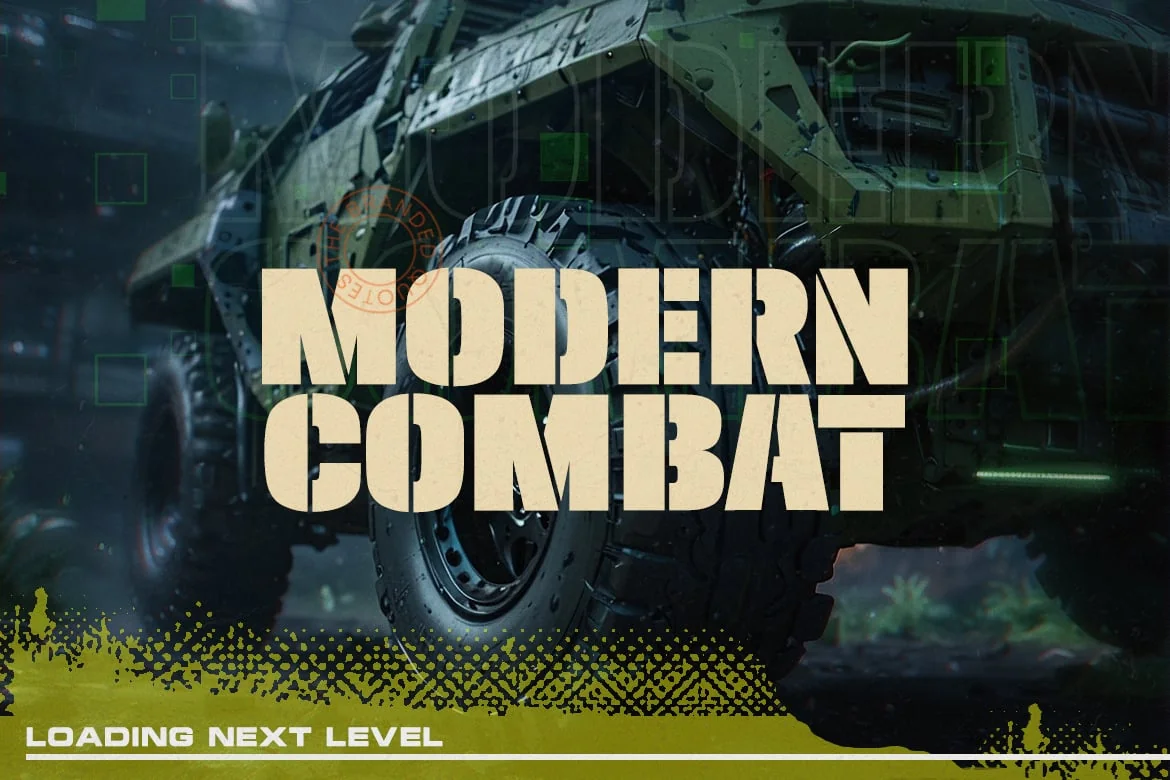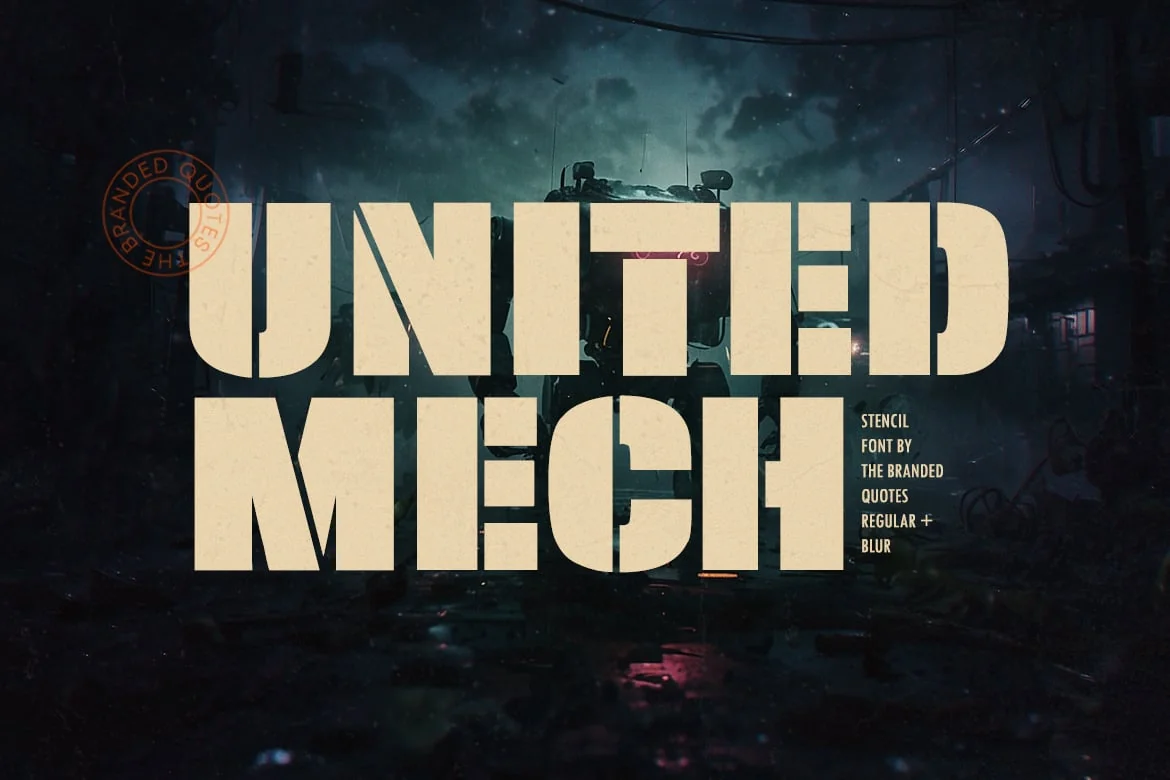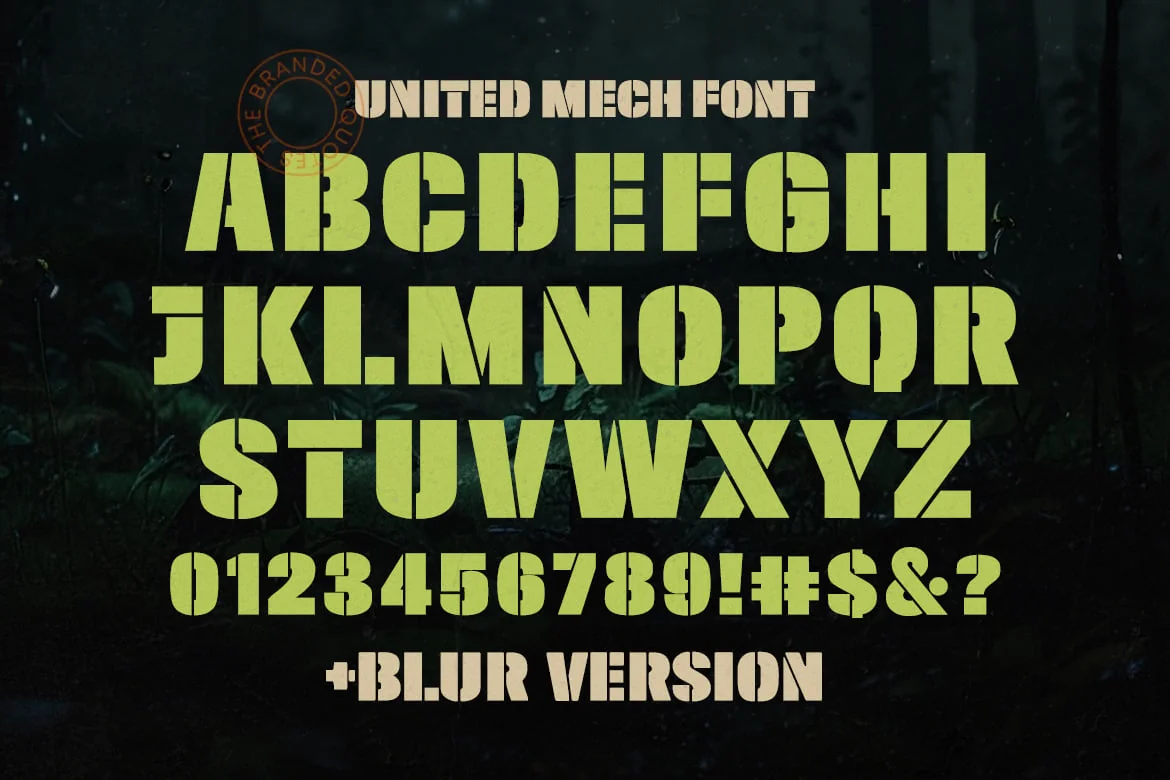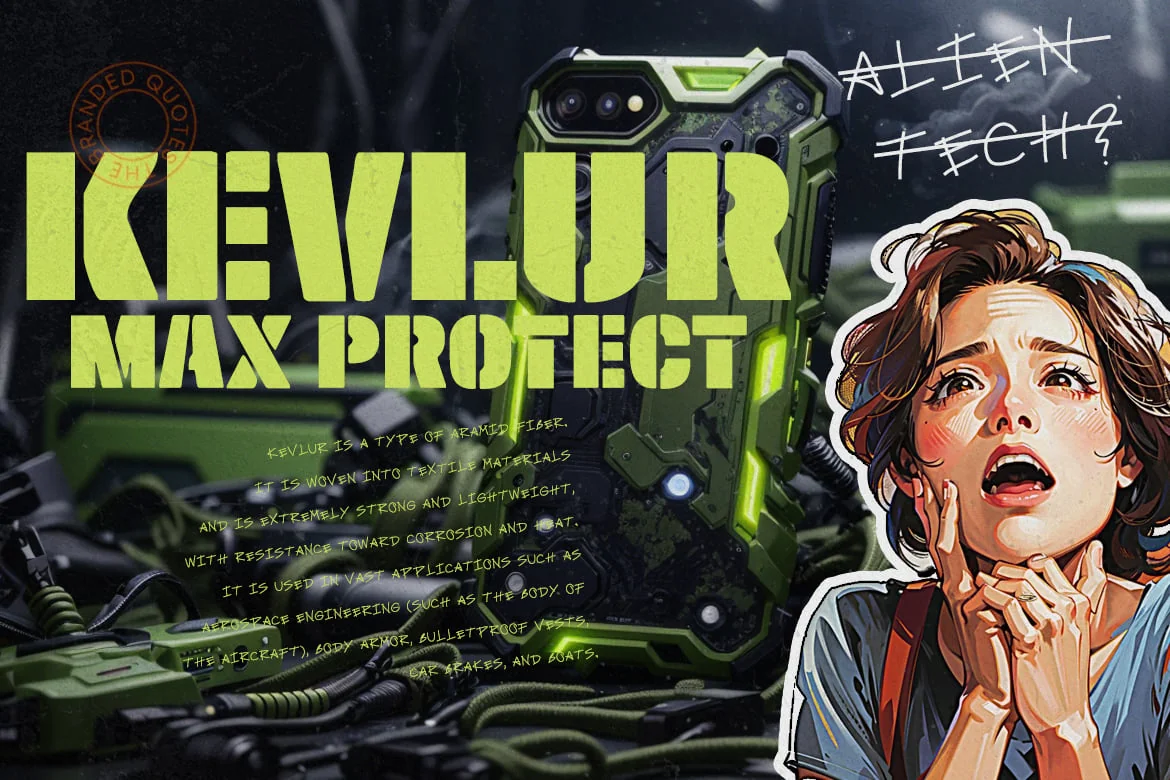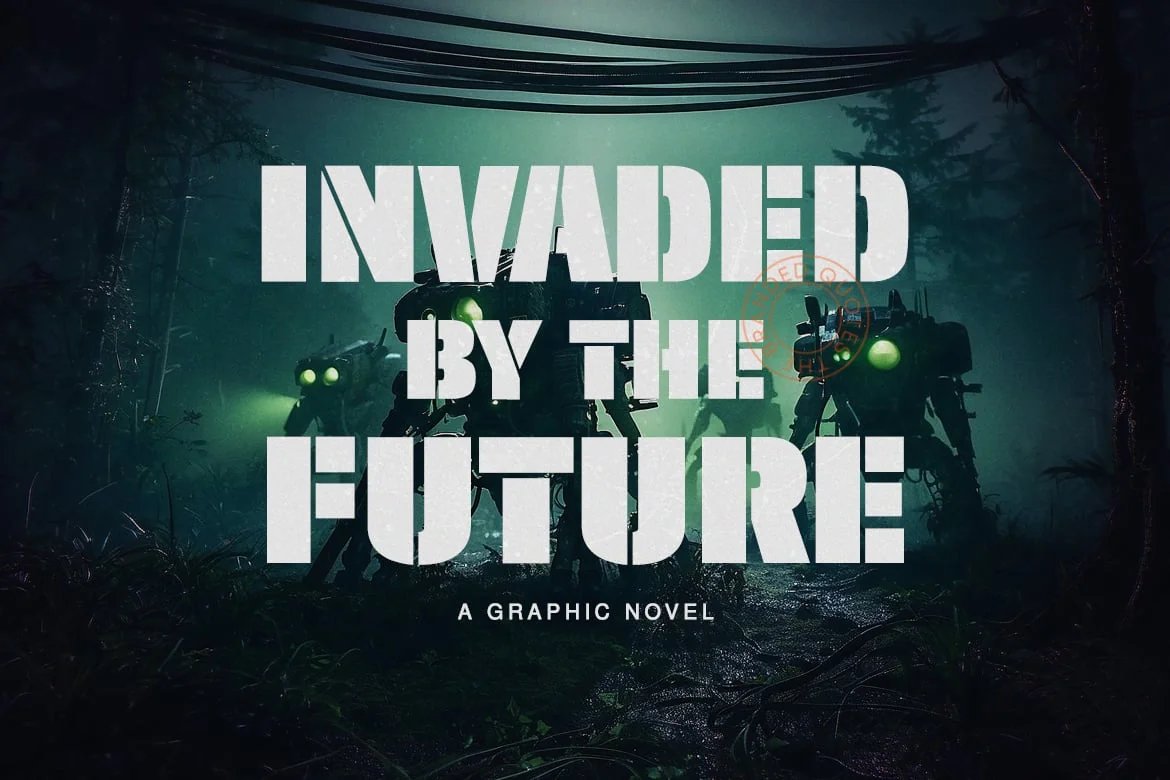
United Mech – Stencil Sans Font
United Mech is a stylish stencil font that draws inspiration from the futuristic elements found in modern science fiction movies and popular tactical video games. The two versions of this font gives a versatile choice for various design projects. The font’s design elements are reminiscent of the high-tech gadgets. The clean lines and bold appearance can effectively convey a sense of strength and professionalism.